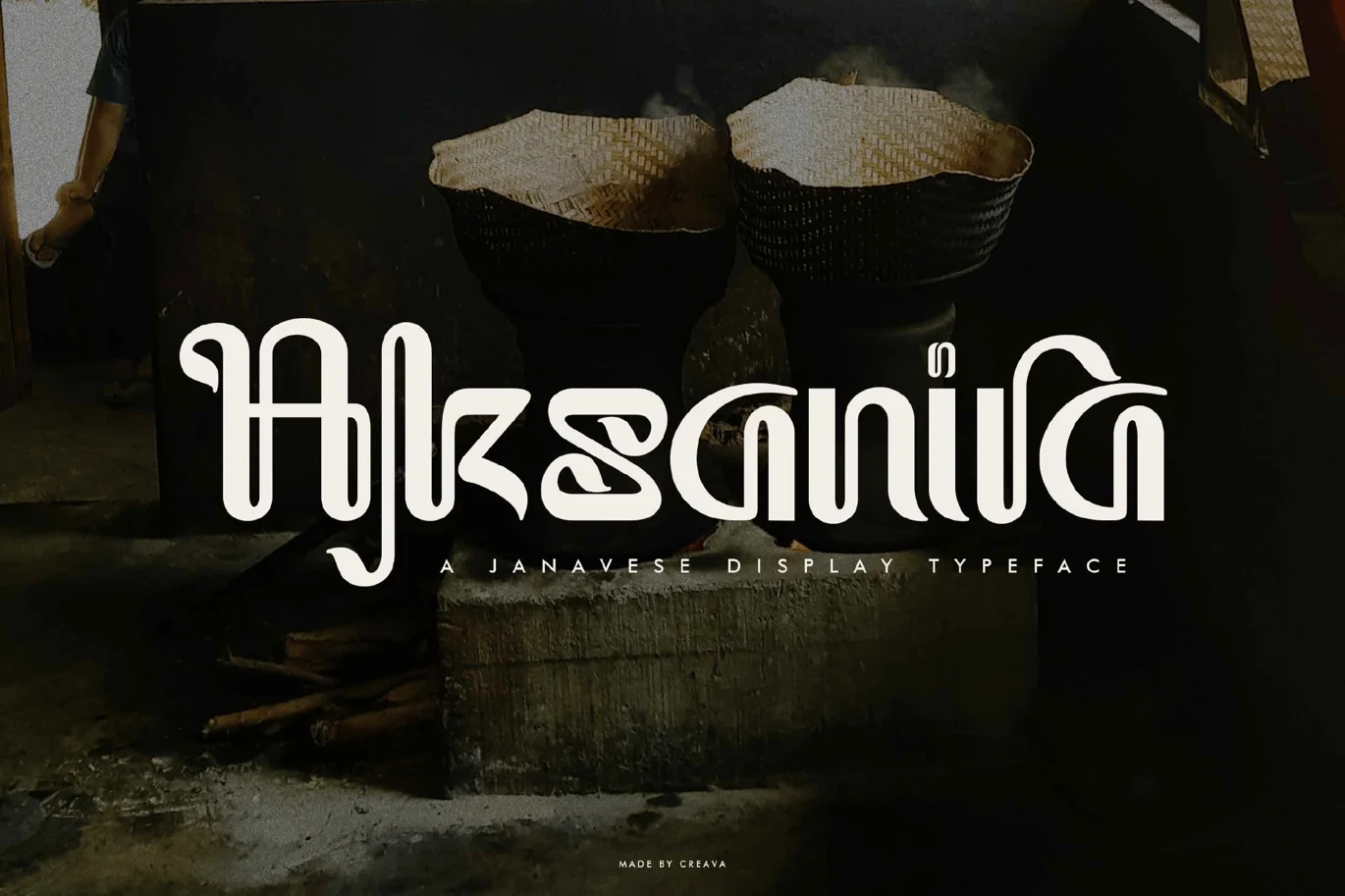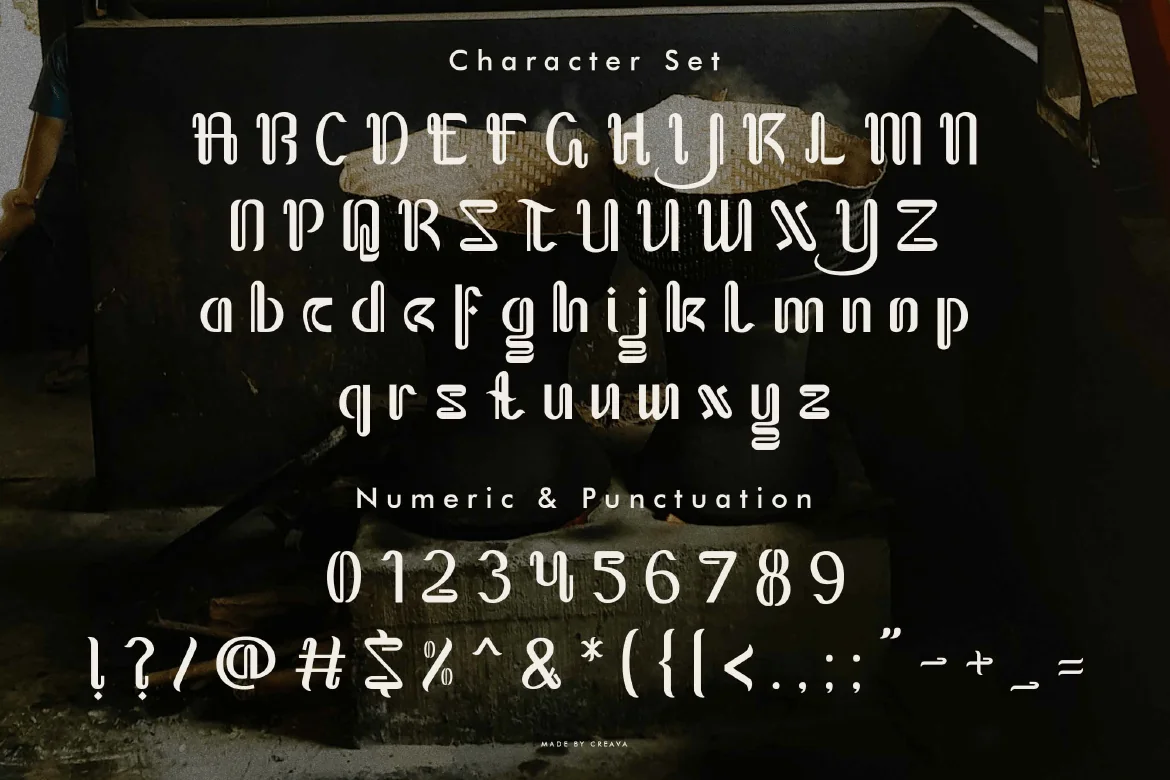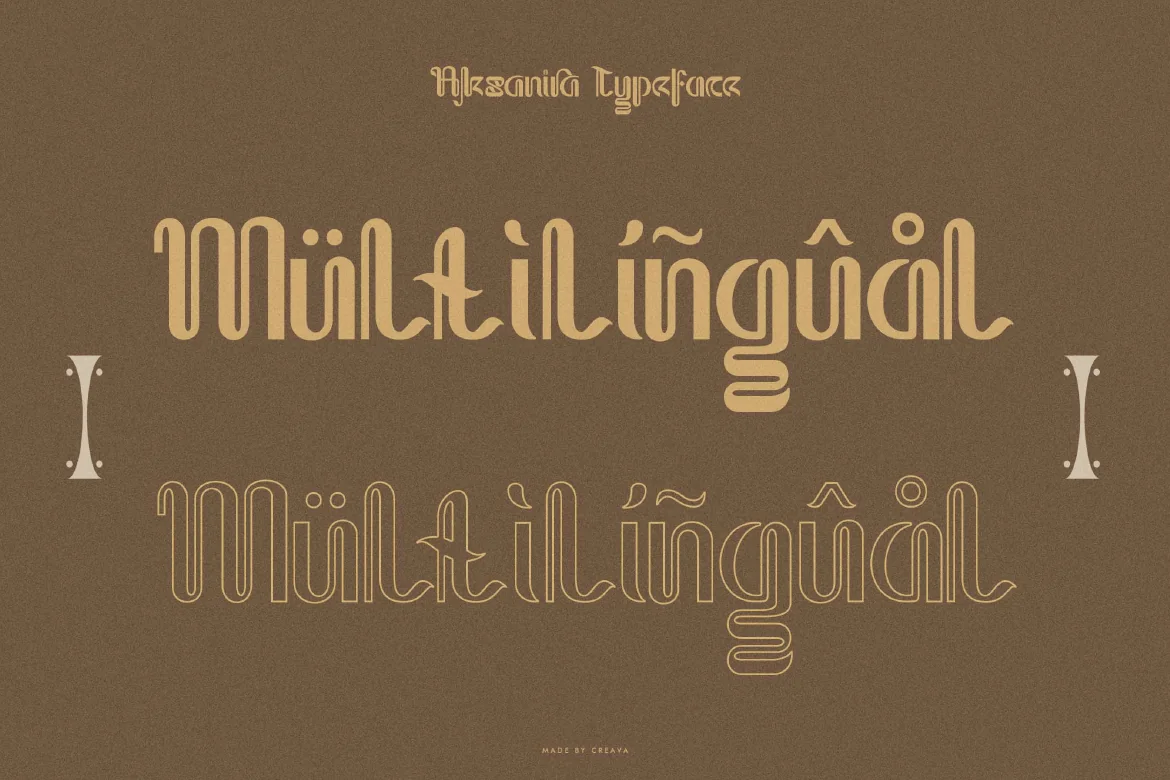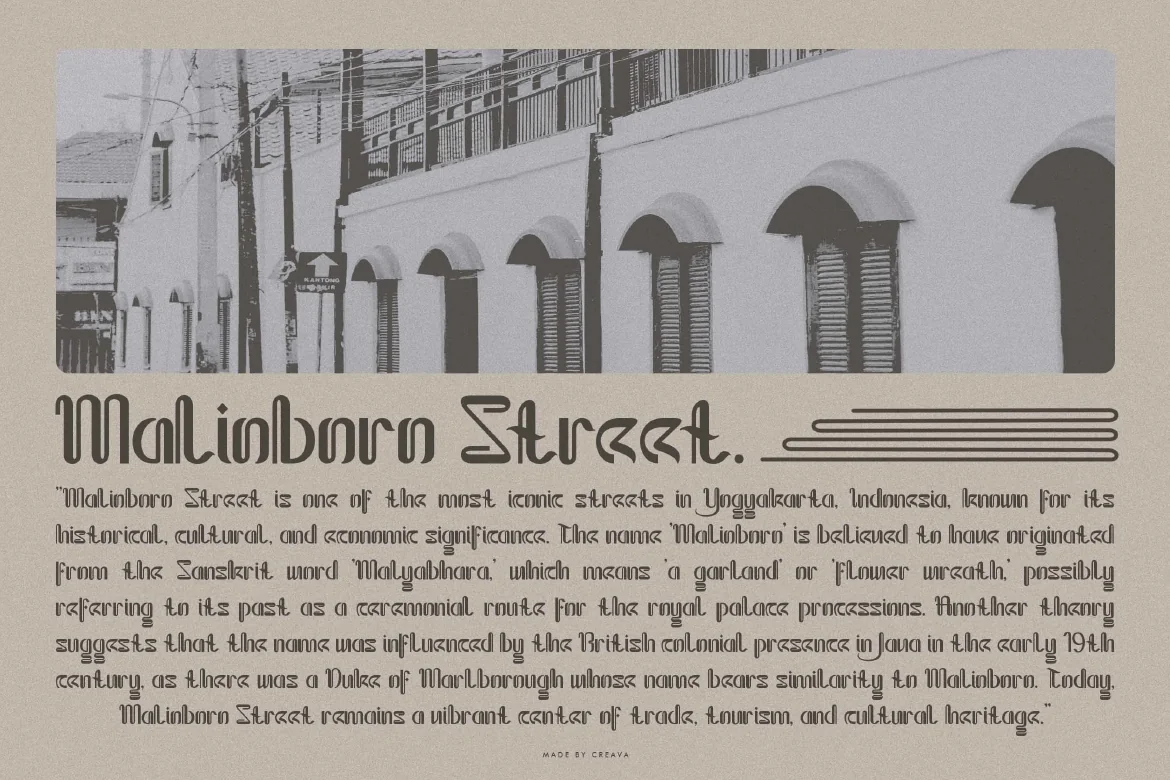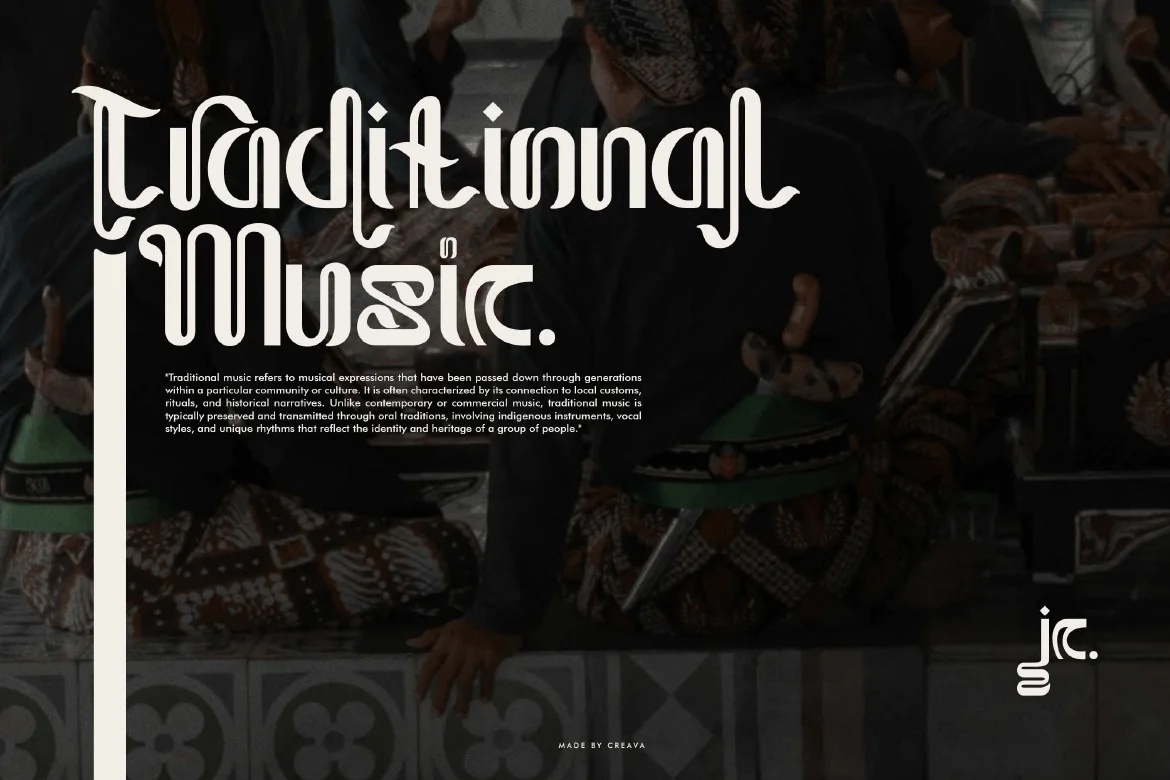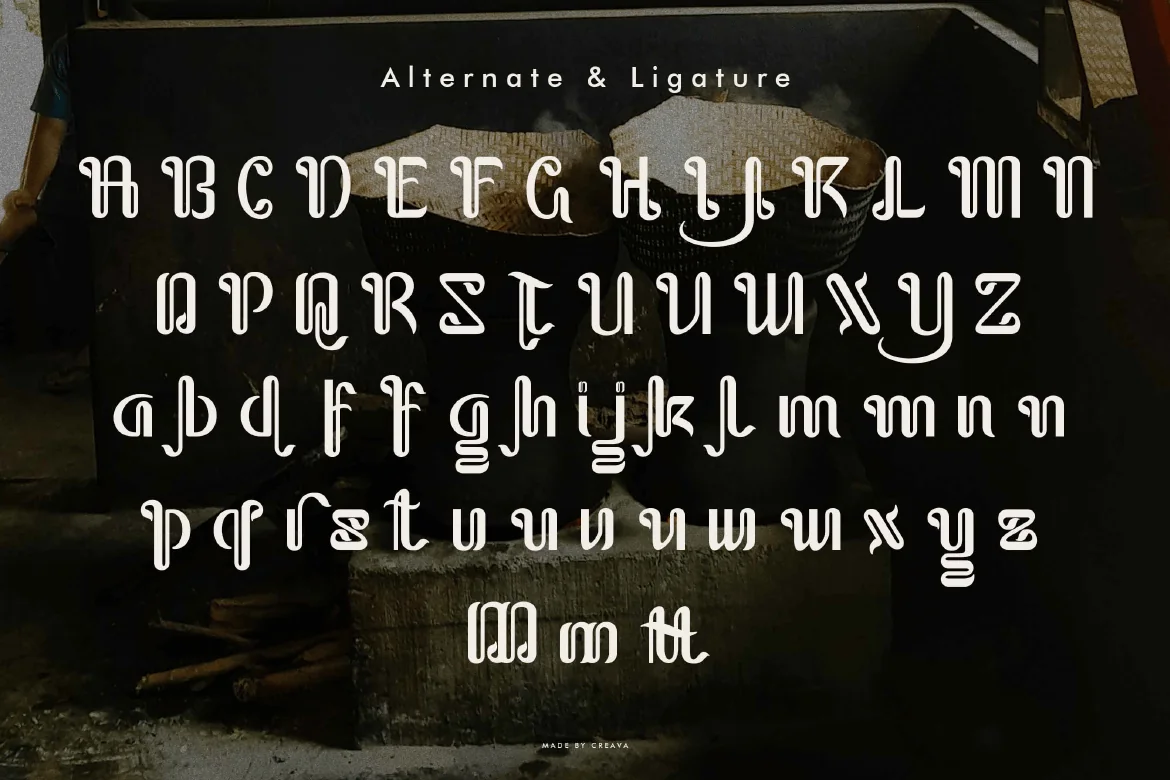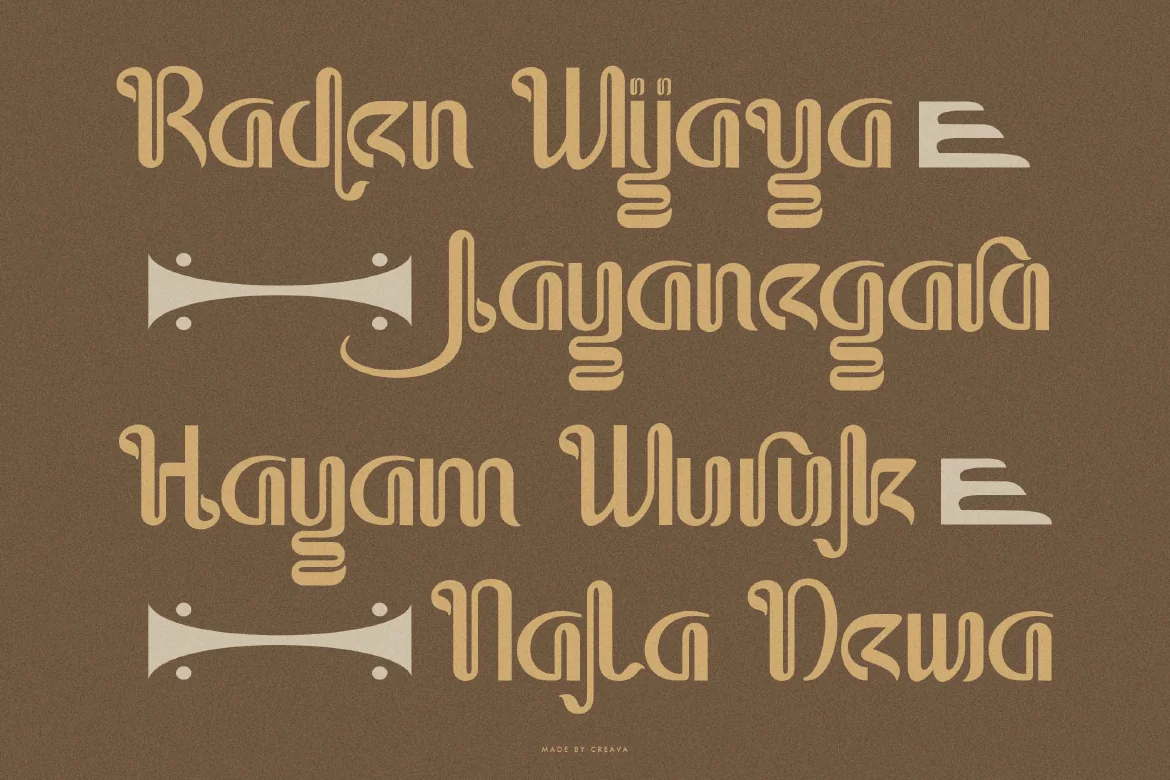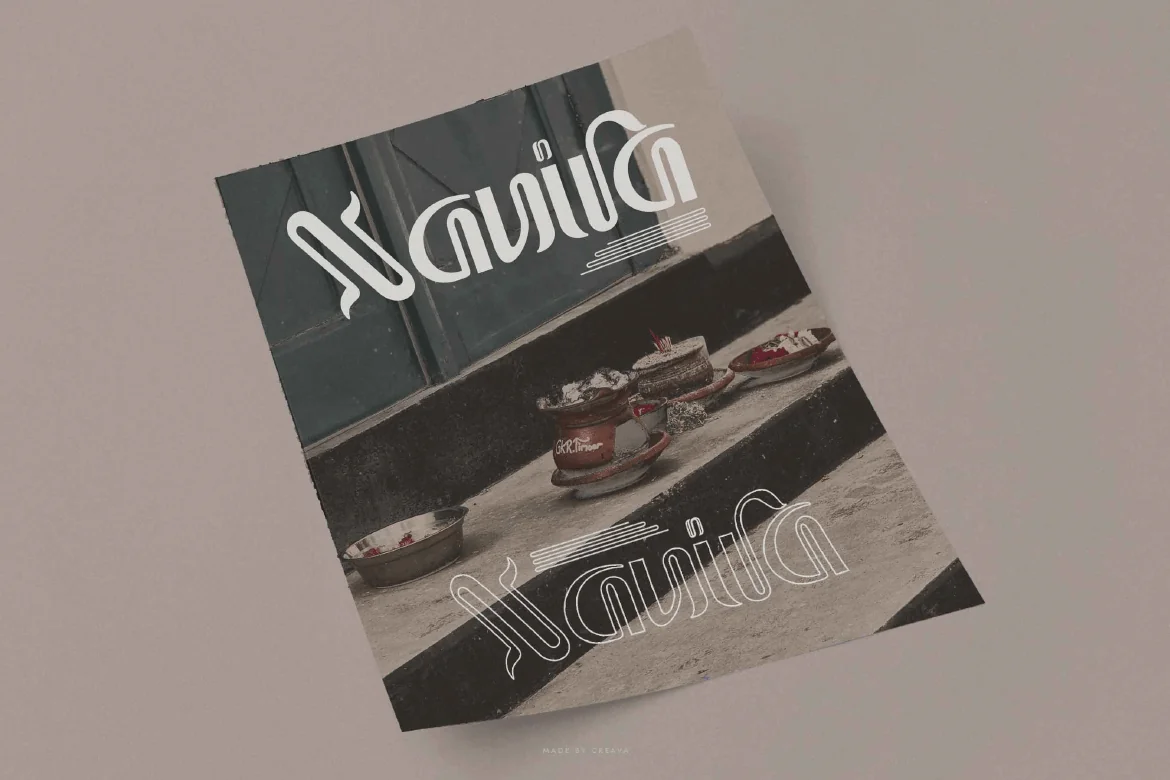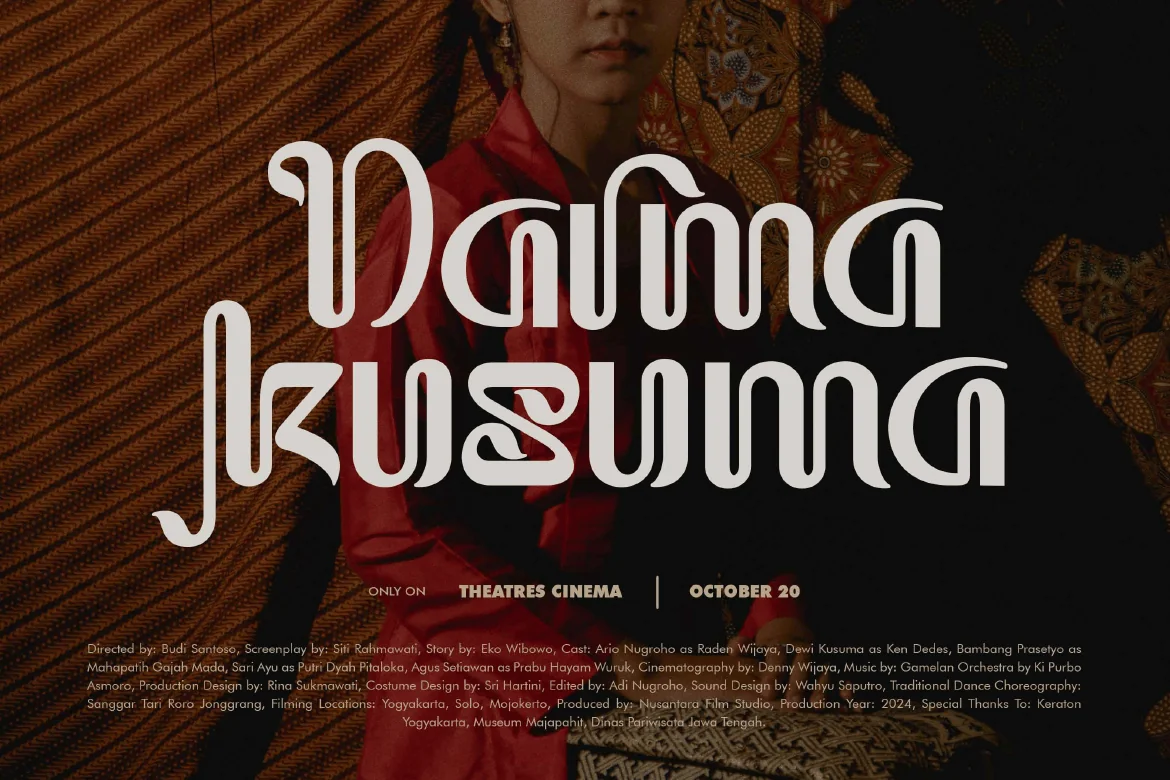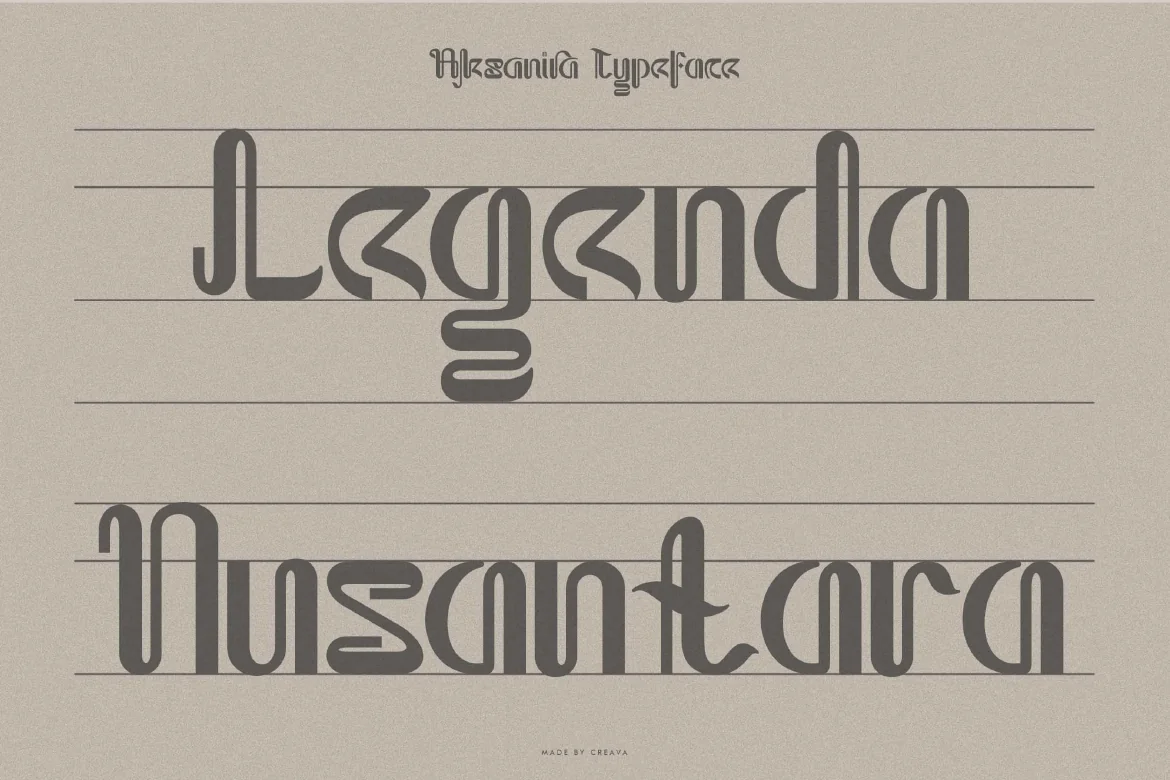
Aksanira Font
Aksanira is a Javanese display font that beautifully blends cultural heritage with modern design. Its unique letterforms make it suitable for movie posters, traditional and cultural branding, event invitations, historical-themed projects, book covers, logos, and artistic merchandise. Aksanira brings an authentic and elegant touch to any design.
- Uppercase alphabet A-Z
- Lowercase alphabet a-z
- Numbers 0-9
- Some punctuation